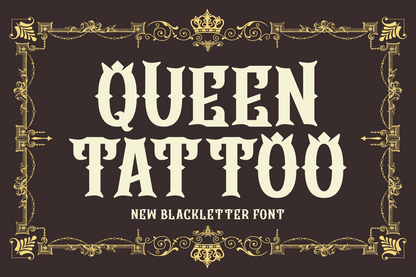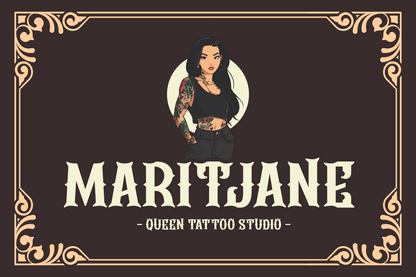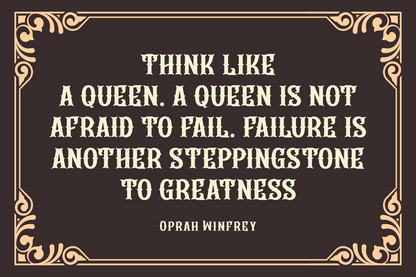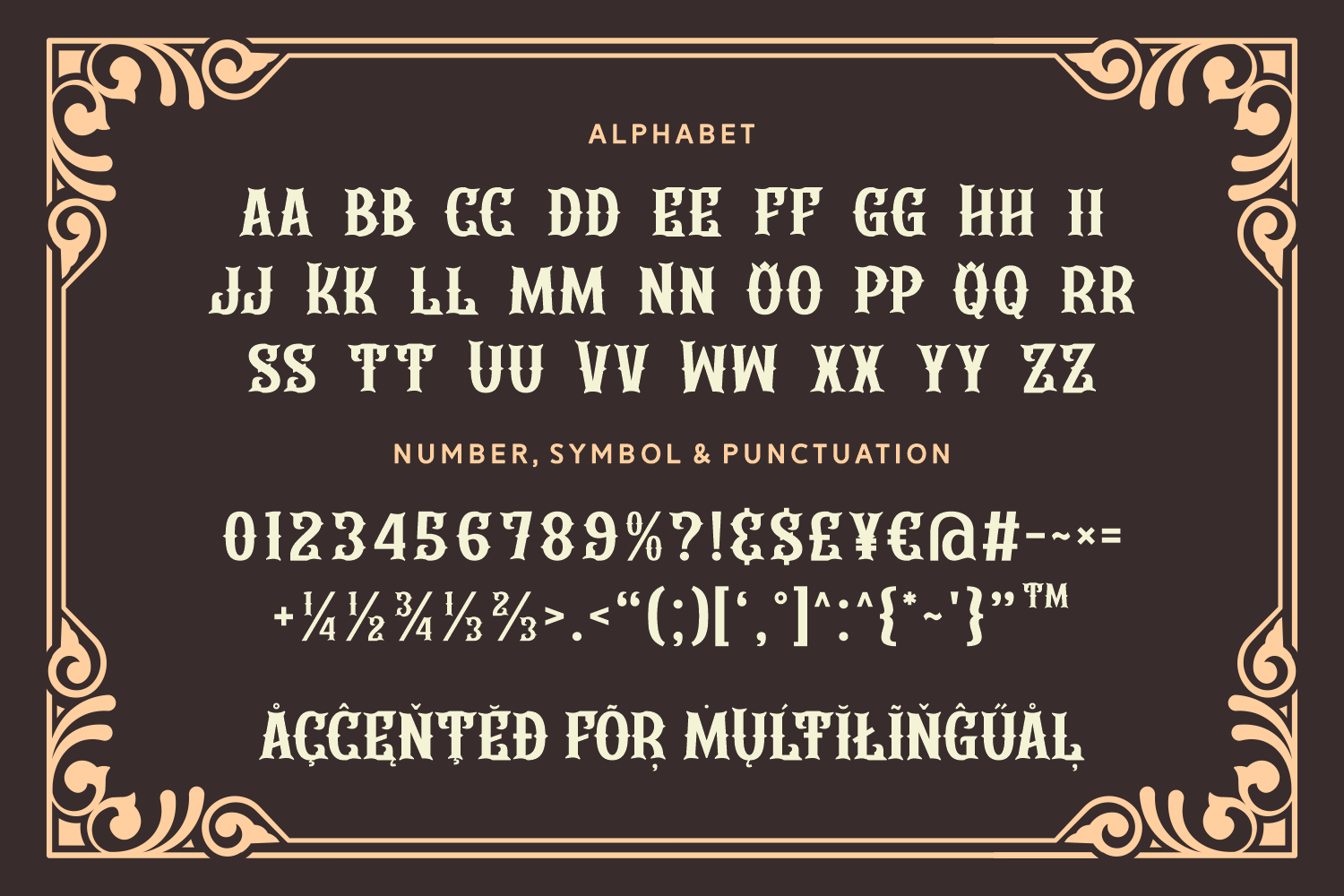
Queen Tattoo is a regal blackletter font with ornate borders and bold lettering. Perfect for tattoo parlors, vintage logos, and poster designs seeking royal gothic character.